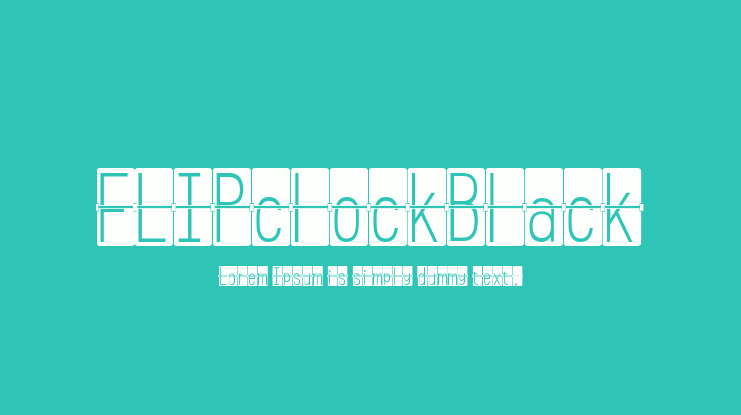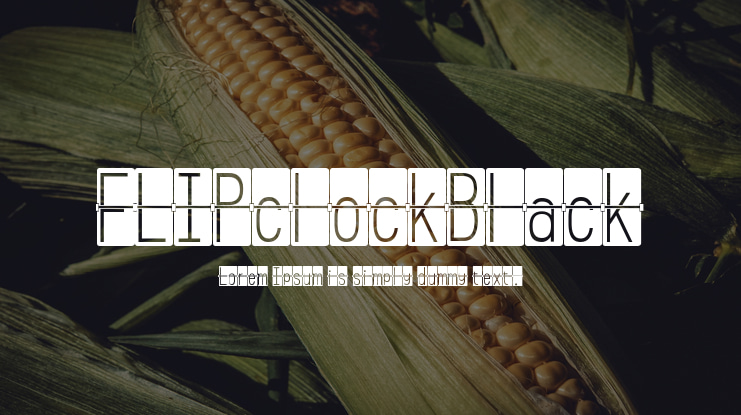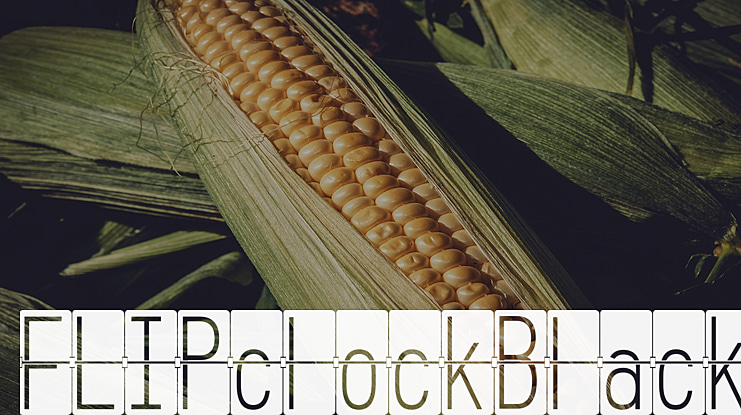
FLIPclockBlack Font Family
Remember vintage flip clocks? Y'know, the clock that kept you up all night due to the 'CLICK!' every minute? Over and over...and over and over...time seemed to slow a bit as you waited for the next 'CLICK!'
Time to relive it - again, and again and again.
FLIPclockBlack font preview
FLIPclockBlack Regular font
FLIPclockWhite Regular font